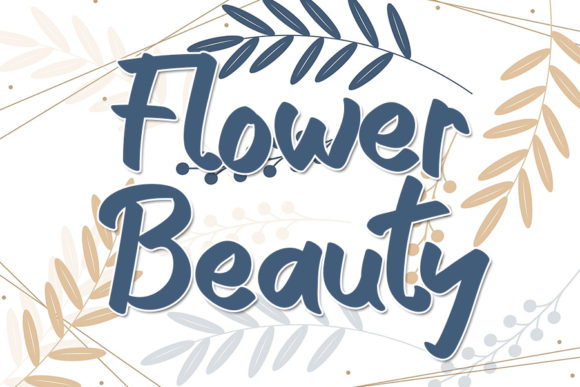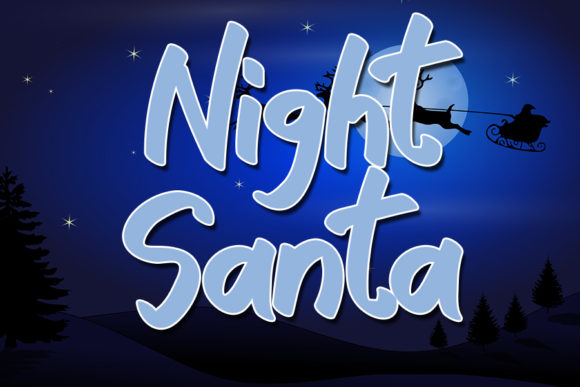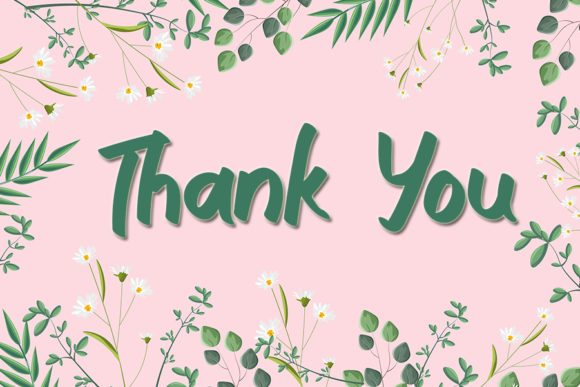
Introduction to Francisco Font
As a designer, you’ve probably experienced that moment when you’re brainstorming ideas for a new project and everything just clicks – the colors, the shapes, the typography. It’s like the universe is aligning to help you create something truly special. For me, that moment came when I stumbled upon the Francisco Font. Its playful, hand-painted feel immediately captured my attention, and I knew I had to learn more.
The Francisco Font is more than just a pretty face – it’s a valuable design resource that can elevate your creative projects to the next level. With its high-quality, paint-brushed design, this font is perfect for adding a touch of joy and whimsy to your work. Whether you’re designing a logo, creating stationery, or crafting a special title, the Francisco Font is an ideal choice.
Francisco Font
- High-quality, professional font suitable for various creative projects
- Designed to provide a unique and creative touch to any design resource
Honest Review: Francisco Font
I recently had the chance to work with the Francisco Font and I must say, it’s been a game-changer for my creative project. The high quality of this font is evident from the first glance, and it’s perfect for any design resource that requires a touch of elegance.
- ✨ High quality and elegant design
- ✨ Versatile for both digital and print projects
However, I did notice a few limitations. The font doesn’t come with a lot of variations, which can be a bit restrictive for some designers. Additionally, the font might not be suitable for projects that require a bold, attention-grabbing font.
Overall, I’m really impressed with Francisco Font and would highly recommend it for any creative project that requires a touch of sophistication.
Francisco Font
Francisco Font is a high-quality design resource ideal for creative projects. It features a transparent background, making it versatile for various applications.
Tips for Getting the Most Out of Francisco Font
Experiment with different font sizes, colors, and combinations to find the perfect look for your project. Use it in conjunction with other design elements to create visually appealing designs.
Francisco Font is ideal for branding, graphics, presentations, and documents. Its versatility makes it a great addition to any design project.